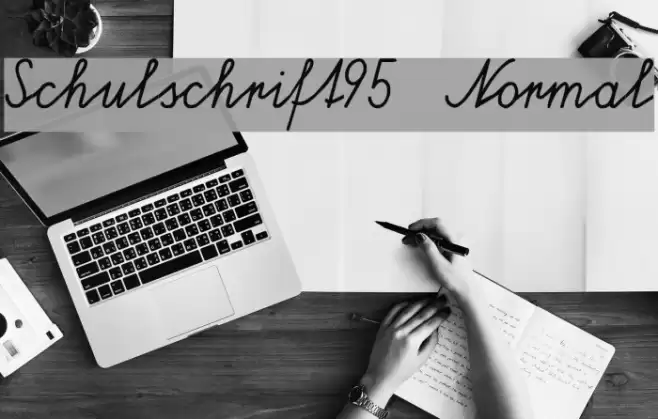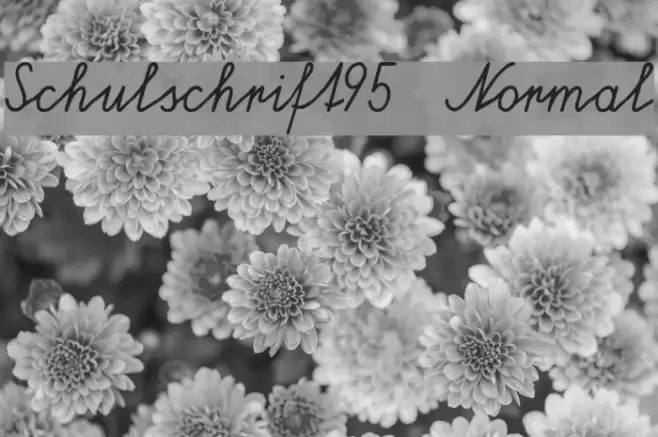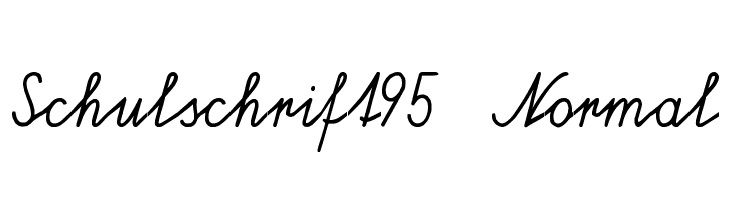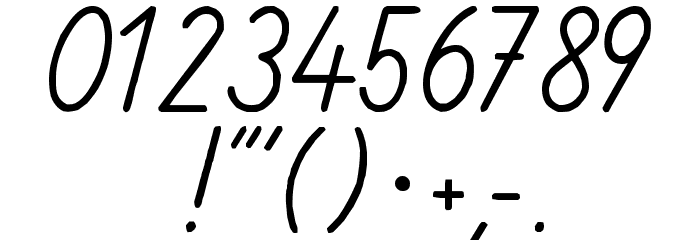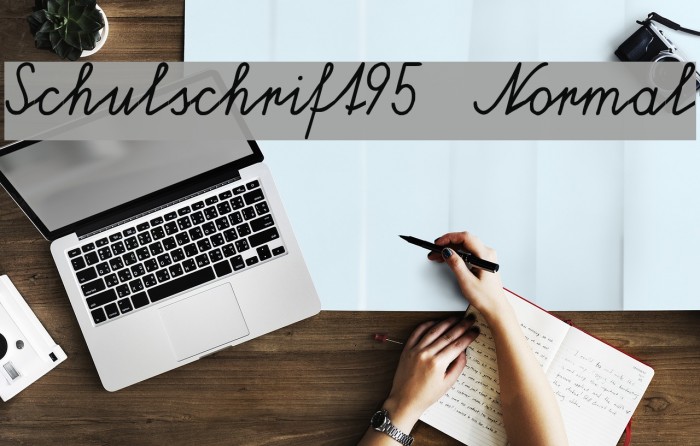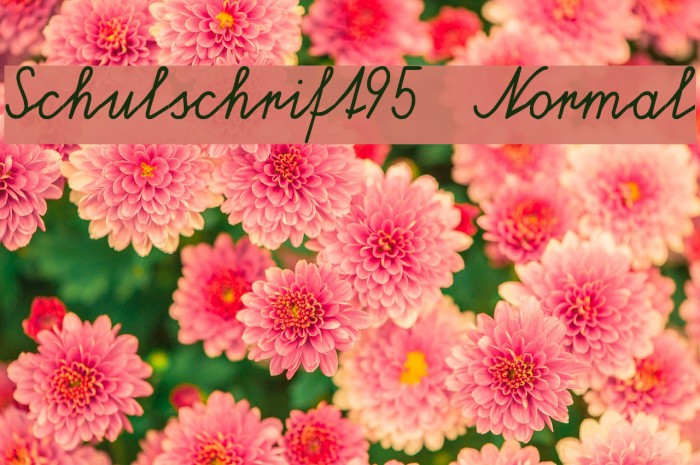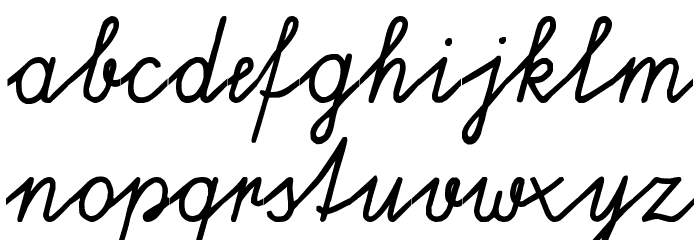
Schulschrift95 Normal Font
Schulschrift95 Normal Description
This font features a handwritten, cursive style that mimics traditional school script. The letters are connected, creating a fluid and continuous flow that is characteristic of cursive handwriting. The uppercase letters are slightly larger and more pronounced, while the lowercase letters maintain a consistent height, enhancing readability. The numbers and special characters are designed to match the cursive style, ensuring a cohesive look across all characters. The strokes are smooth and slightly rounded, giving the font a friendly and approachable appearance. This style is reminiscent of classic penmanship taught in schools, making it ideal for educational materials or projects that require a personal touch.
A cursive, handwritten font with smooth, connected letters and a classic school script style from Uncategorized fonts.
- Proposed Projects: Ideal for educational materials, personal letters, invitations, and any project requiring a handwritten touch.
- Overall Style: Classic
- Use Case: Educational materials, personal letters, invitations